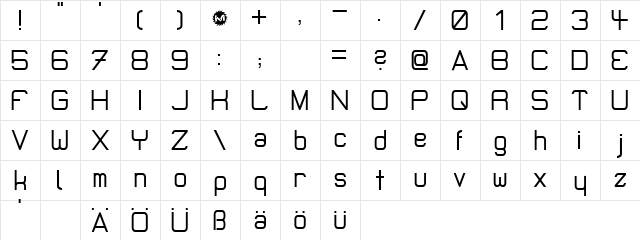
MicroMieps Diet Regular
Design Context for MicroMieps Diet Typeface
MicroMieps Diet takes a measured approach to typography — its balanced proportions and neutral character make it a reliable workhorse for both digital and print work.